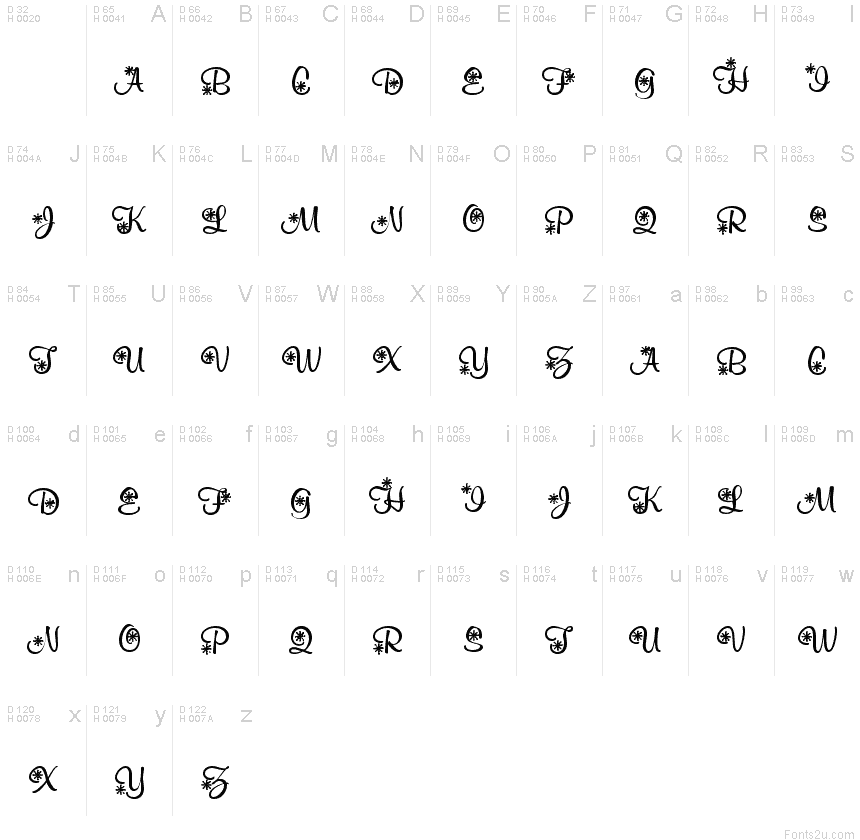
KR Snowflake 2
KR Snowflake 2 by Katsfunfonts is a free winter display font that threads small six-point snowflakes through tall, curling letterforms. The repeated mix of airy swashes and crisp flake motifs gives the design a frosty decorative rhythm instead of reading as a plain seasonal script.
Holiday card titles, gift tags, party invitations, store signage, and scrapbook headers all make natural use of it. Because the snowflakes are part of the font's recurring design rather than a one-off ornament, it can frame short festive phrases, December promos, and classroom winter projects with a clear seasonal cue.